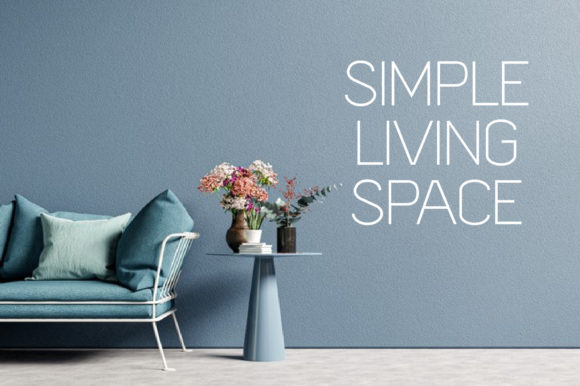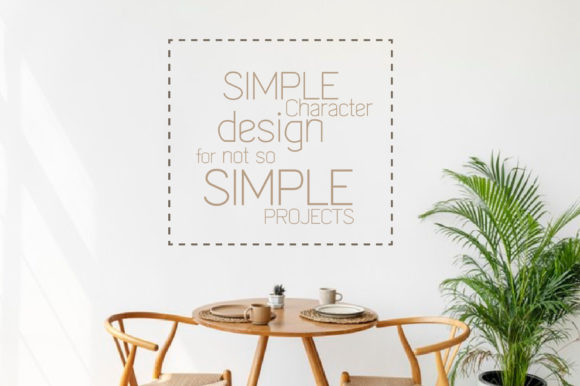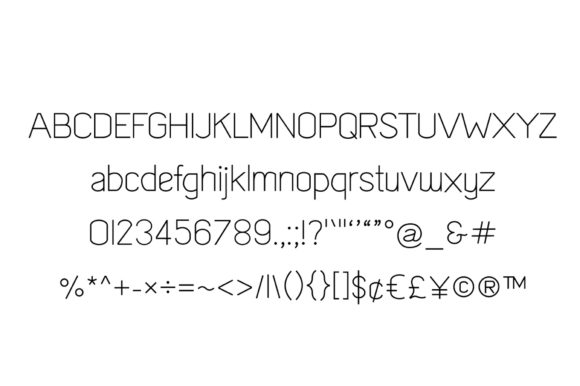
Introduction to Neutral Light Font
Have you ever stared at a blank canvas, searching for the perfect design element to bring your creative project to life? It’s a moment we’ve all experienced, and for designers, it’s a constant quest to find that one thing that sets their work apart. That’s where the Neutral Light Font comes in – a clean, thin lettered sans serif font that can elevate any design and make it stand out in a crowd.
As a valuable design resource, the Neutral Light Font is a game-changer for anyone looking to add a touch of sophistication and elegance to their work. With its high quality and versatile nature, it’s the perfect match for a wide range of creative projects, from logos and branding to digital graphics and more. And the best part? It’s available for free download, making it an accessible and transparent background for designers of all levels.
- Unique characteristic: a clean and minimalist design, perfect for modern and sleek creative projects
Honest Review: Neutral Light Font
I recently came across the Neutral Light Font, a versatile and elegant design resource that’s perfect for creative projects. The high quality of this font is evident from its sleek and modern aesthetic, making it an excellent addition to any design project.
- Sleek and modern aesthetic that’s perfect for a variety of design styles
However, I did encounter some limitations with the Neutral Light Font:
- Some users may find the font to be too minimalist, lacking in expressiveness
- Not suitable for projects that require bold, attention-grabbing typography
Overall, I’m impressed with the Neutral Light Font. While it may not be perfect for every design project, its high quality and versatility make it an excellent resource for designers looking for a reliable and elegant font.
The Neutral Light Font is ideal for a variety of creative projects, including branding, marketing materials, and digital products. Its transparent background and sleek design make it perfect for use in logos, graphics, and typography.
Alternatives to Neutral Light Font
Open Sans is a high-quality, sans-serif font ideal for creative projects requiring a clean and modern look. It’s available for free download and is often used for headings and body text. Open Sans is a great alternative to Neutral Light Font when you need a more contemporary feel.
Comparison: While Open Sans has a similar neutral tone to Neutral Light Font, it has a slightly more modern and edgy feel.
Lato is a beautiful, free font with a transparent background, making it perfect for designers who want a clean and elegant look. It’s a great resource for creative projects that require a sophisticated feel. Lato is a suitable alternative to Neutral Light Font when you need a more refined and elegant design.
Comparison: Lato has a more rounded and elegant feel compared to Neutral Light Font, making it ideal for designs that require a touch of sophistication.